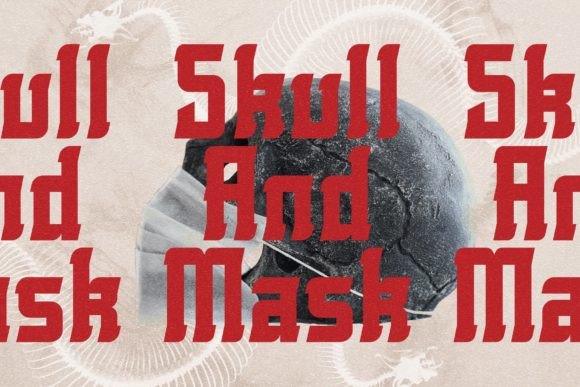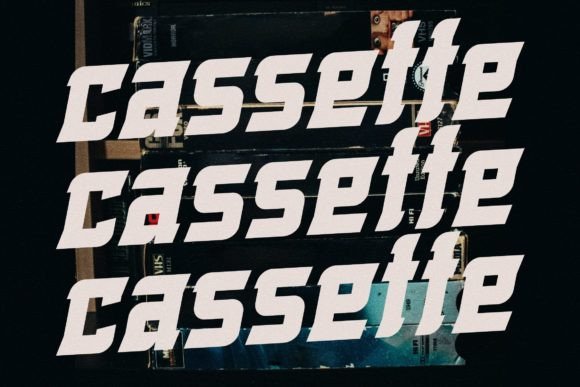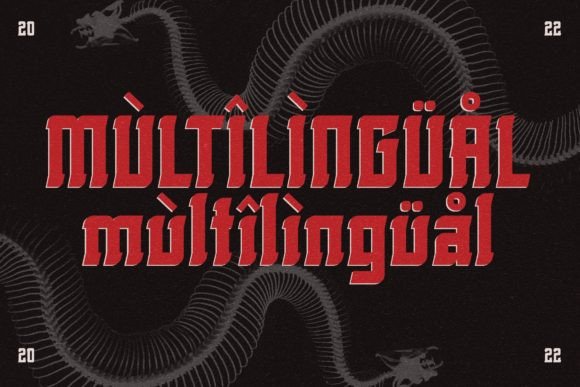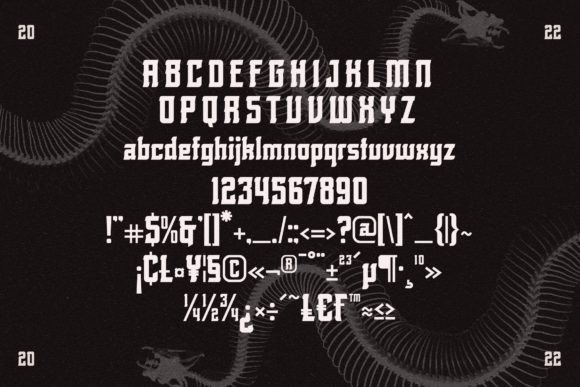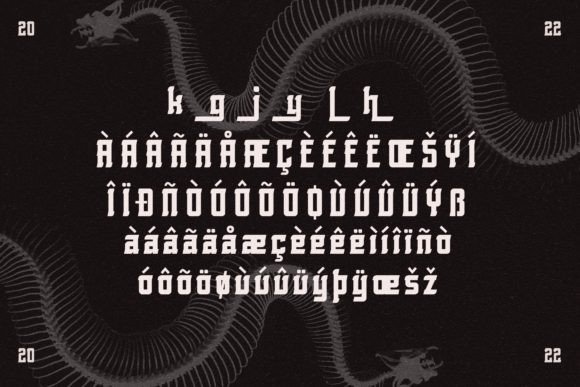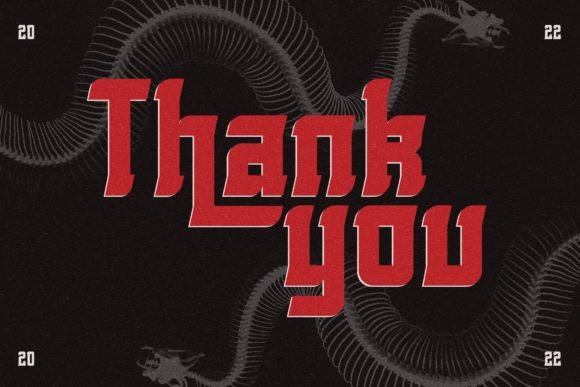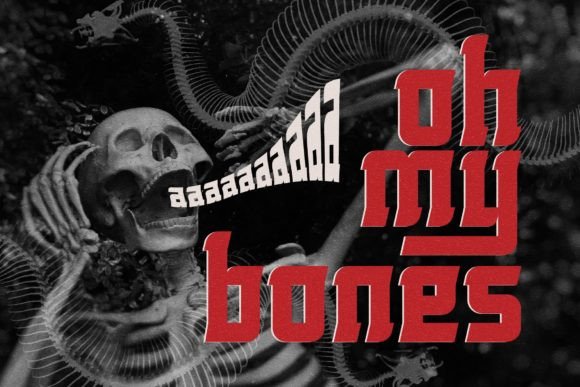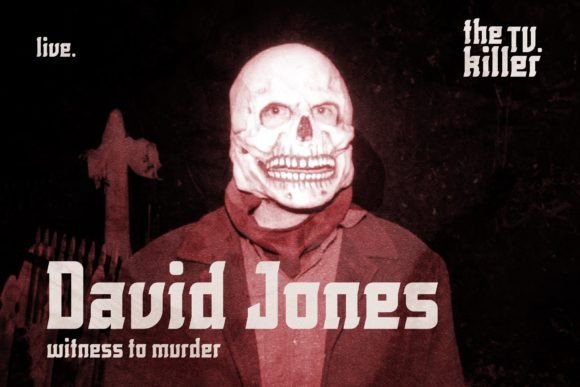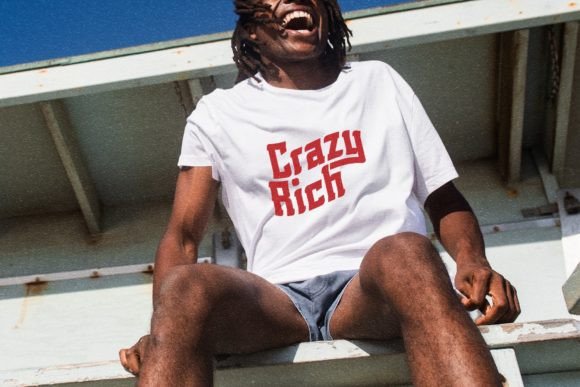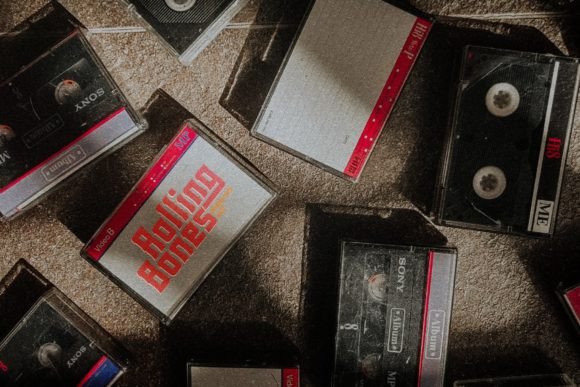
Rolling Bones Font
ROLLING BONES FONT SPECIMEN
Proudly present Rolling Bones, a modern and classic slab serif font with a unique style and modern look.
This typeface is perfect for an elegant & luxury logo, book or movie title design, fashion brand, magazine, clothes, lettering, quotes, and so much more.